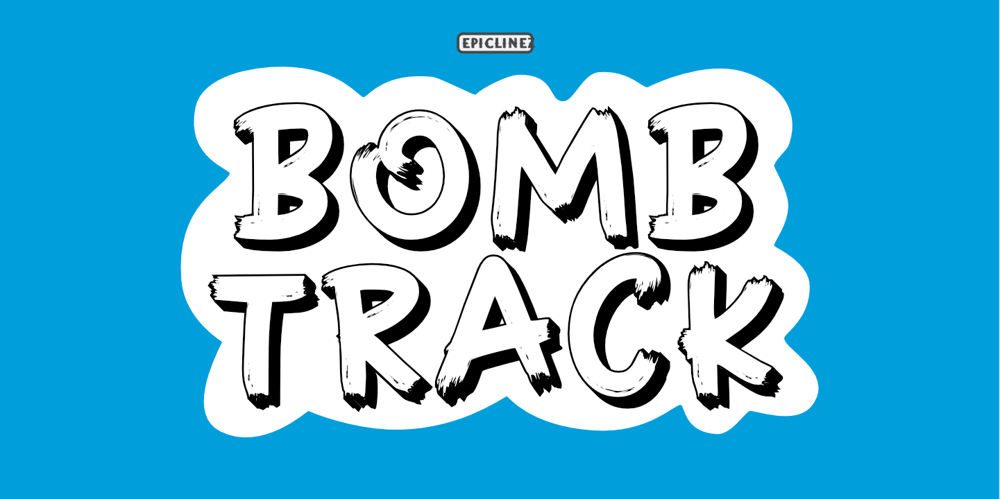
Bombtrack Font Family was designed by Aldy Sidik and published by Epiclinez. Bombtrack contains 1 styles and family package options. Bombtrack is a reference to hip hop terminology where the word ‘bomb’ means ‘the greatest’. With splatter of inks looks alike in every glyph, produces moments of pure awesomeness. This kind of typeface proves its usefulness from time to time. You can use it for headlines, apparel, branding, and many more.Bombtrack contains 215 glyphs. Supporting more than 67 languages, from English to Zulu. Bombtrack is raw, casual, carefree, and authentic. Handcrafted with passion and love for your awesome projects.